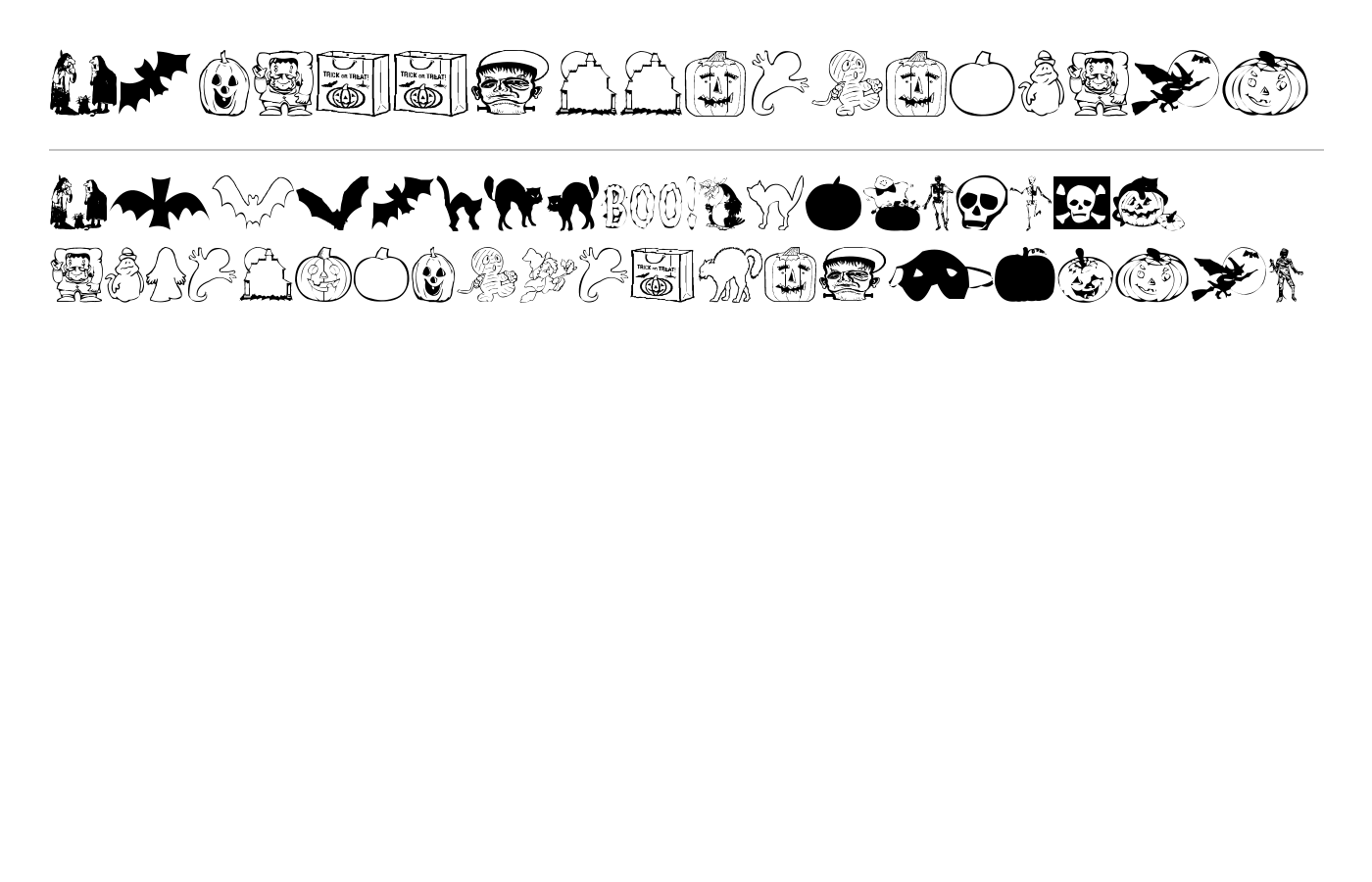
AEZ Halloween Dingbats is a playful, decorative dingbat font featuring a variety of spooky Halloween-themed icons like pumpkins, bats, ghosts, and skeletons. It’s perfect for adding a fun, festive touch to seasonal projects, party invitations, posters, and themed decorations. This font brings a lighthearted, whimsical vibe that works well in creative designs celebrating Halloween.
AEZ halloween dingbats Font
About AEZ halloween dingbats Font
| Font family | AEZ halloween dingbats Font |
| Designer | Anastacia E. Zittel |